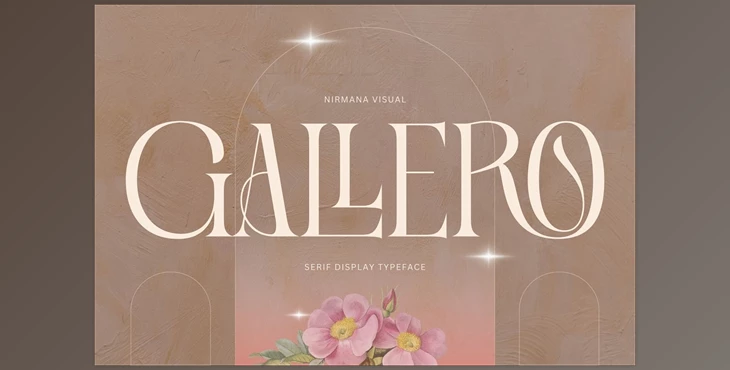
Gallero Vintage – Logo Font: Gallero Vintage, contemporary serif fonts inspired by the Art Nouveau era.
Fashion Wacks provides beautiful typographic harmony for various design-related projects, such as logos, branding, and social media posts. Ads and design concepts for products.